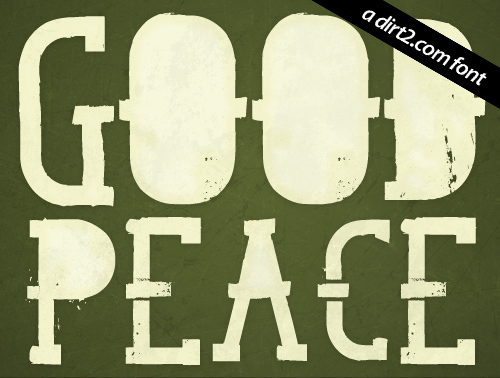
Good Peace is a free distressed slab display font built from massive, uneven letterforms. Its blunt serifs and compressed gaps create a dense silhouette, and rough scratches, chipped edges, and horizontal breaks make the lettering resemble worn ink or damaged signage.
Music posters are its strongest setting, since the battered surface and oversized shapes suit loud, physical artwork with a raw, screen-printed edge. The same industrial roughness also belongs on album covers, streetwear graphics, and underground event branding aimed at punk, metal, or skate audiences.